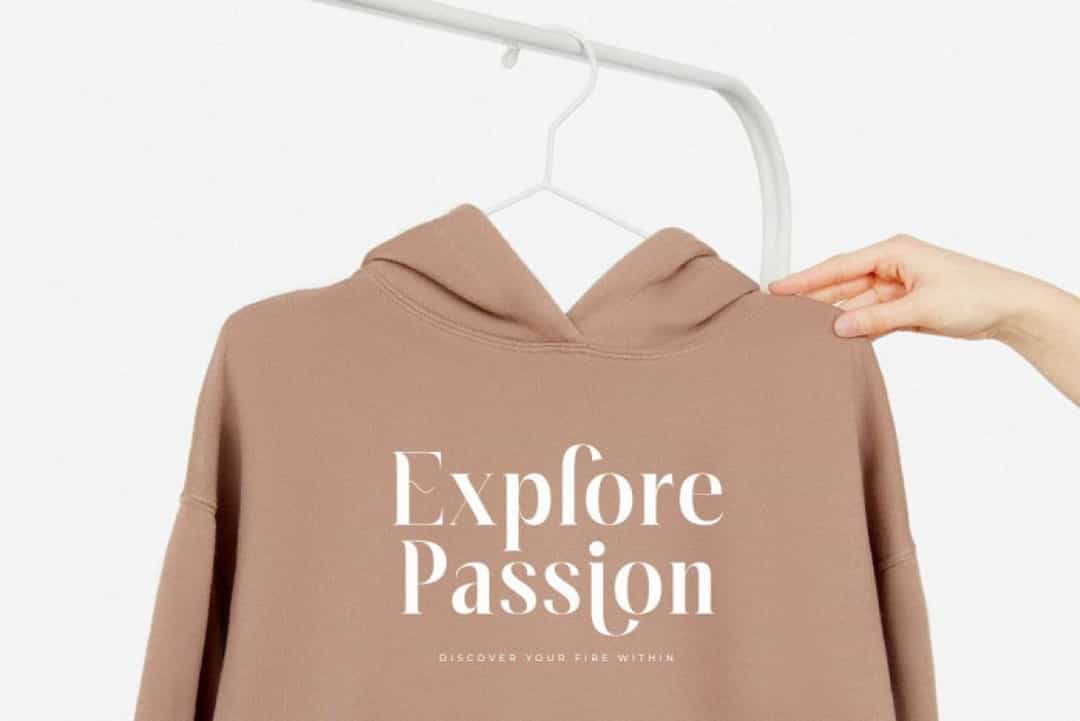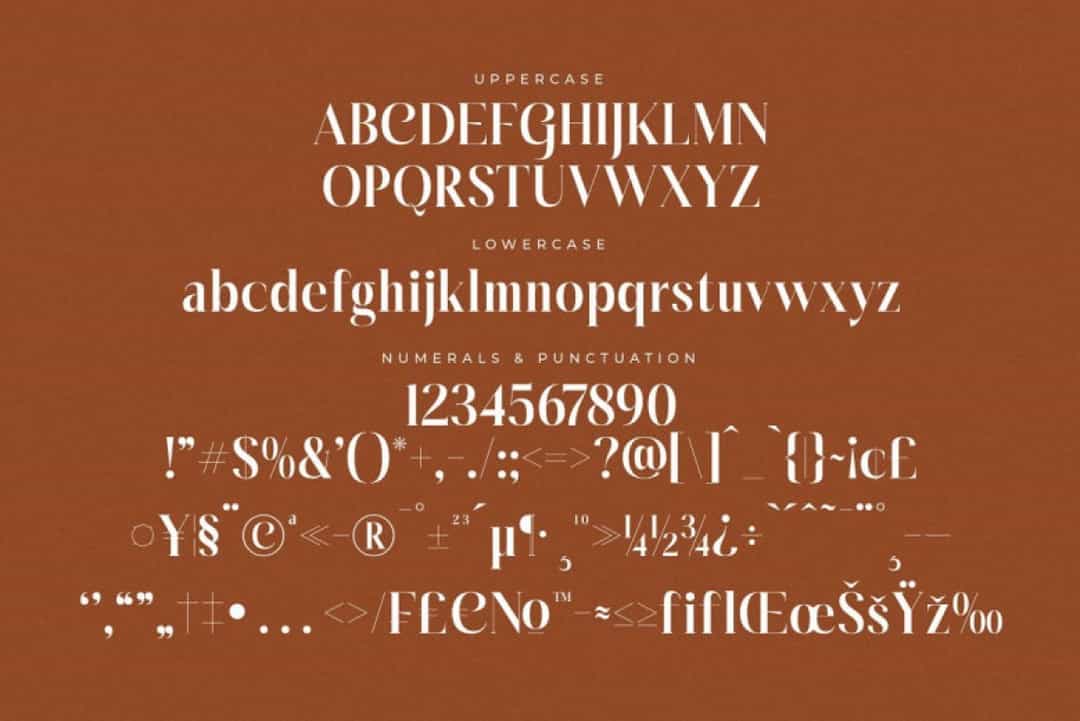
Glanity modern serif font by Letterena is an ideal font choice for various projects such as logos, brand designs for homeware products such as mugs or posters with quotes about them; posters; quotes bags; t-shirts with slogans about shopping or other events and bag. book covers; greeting cards invitation cards watermarks labels or watermarks used as photography watermarks or photography or special event signages or anything that requires luxurious serif flavor such as photography special events photography etc.